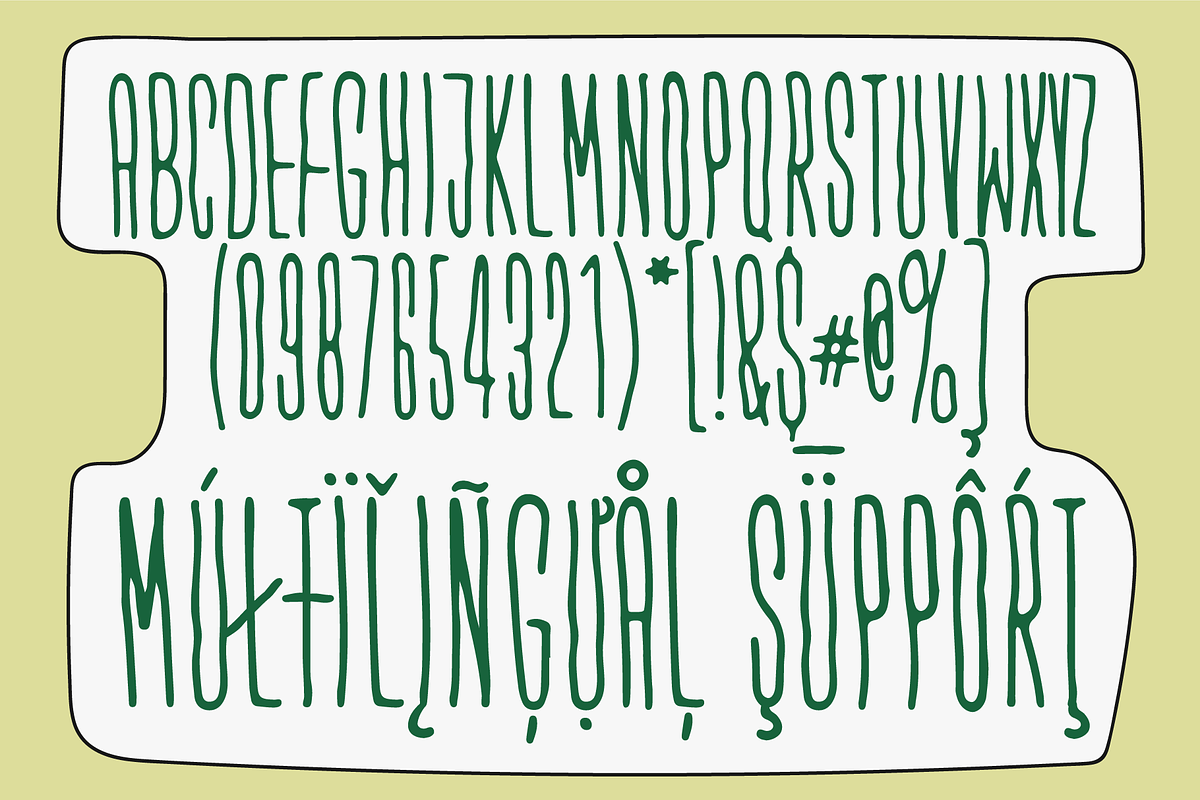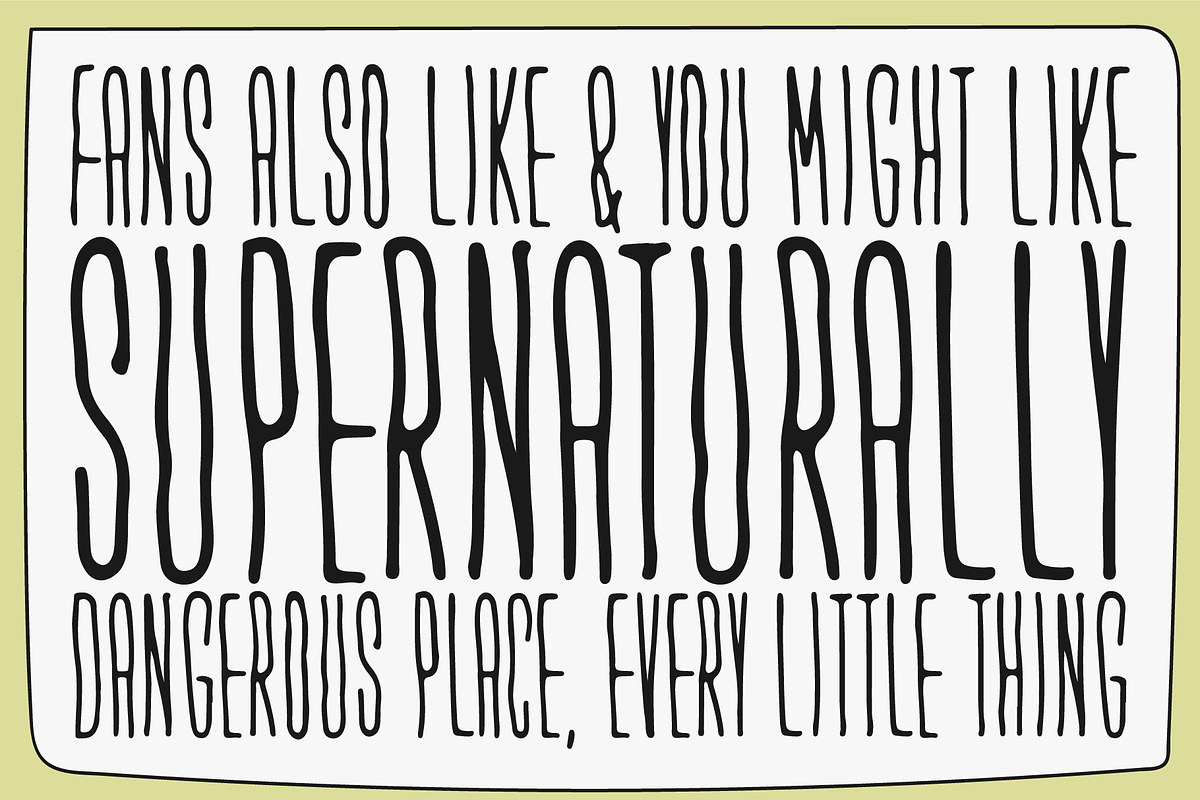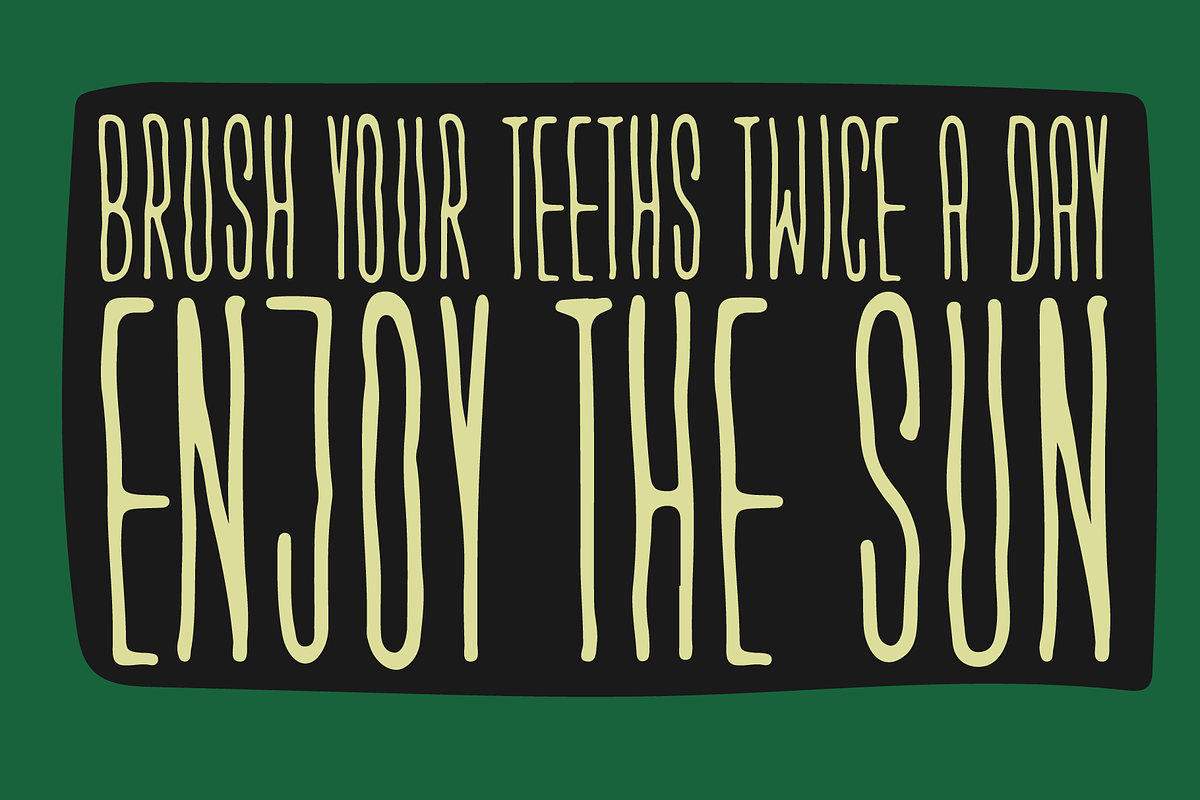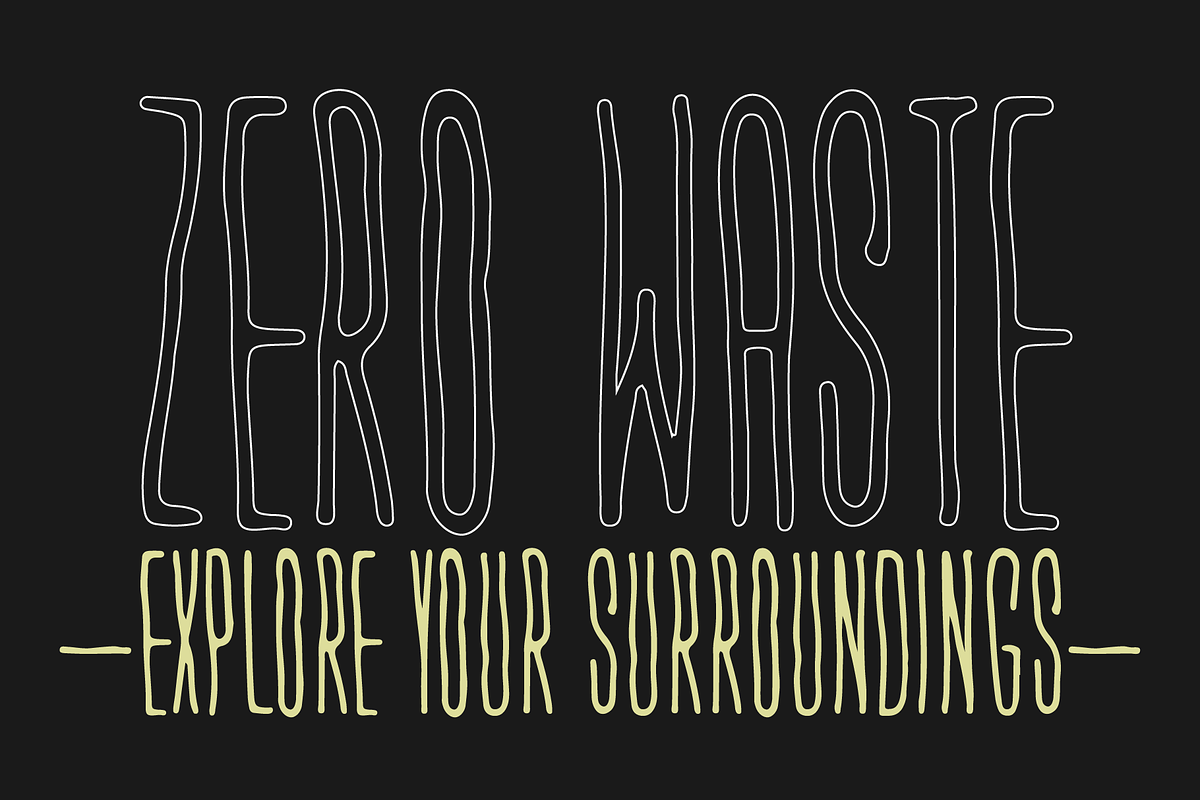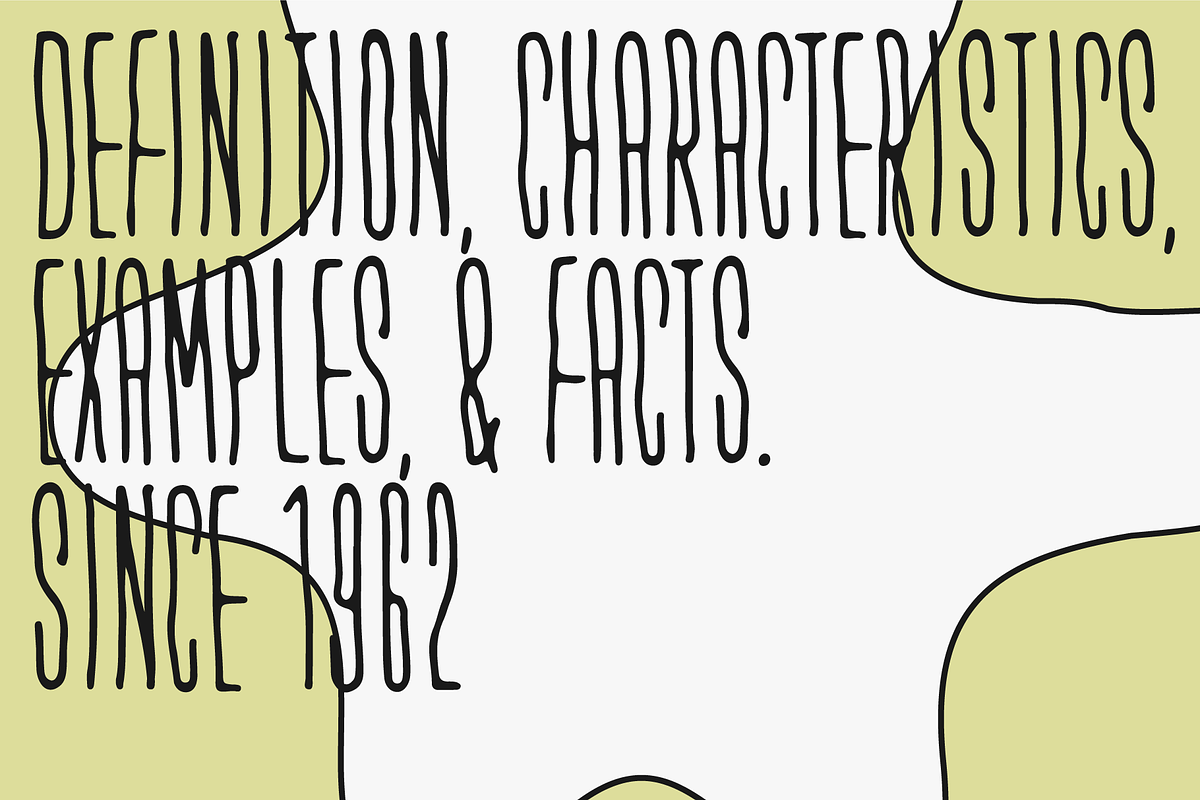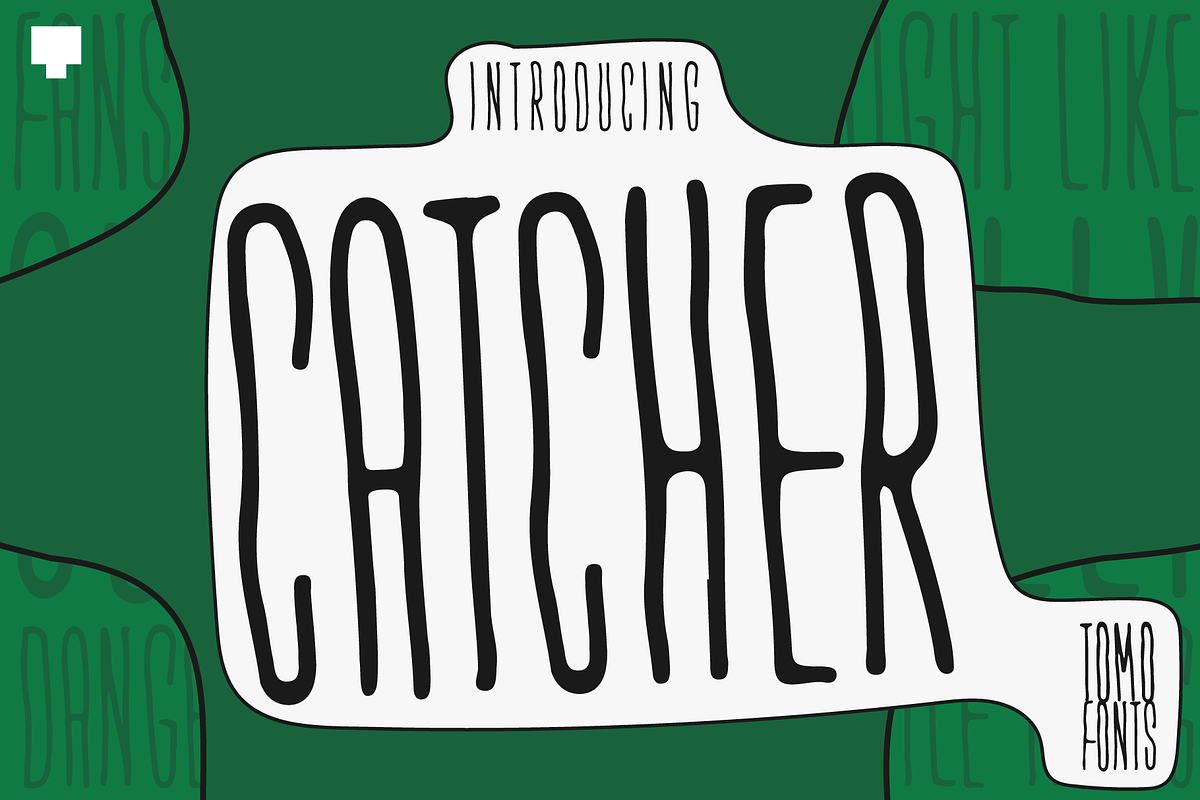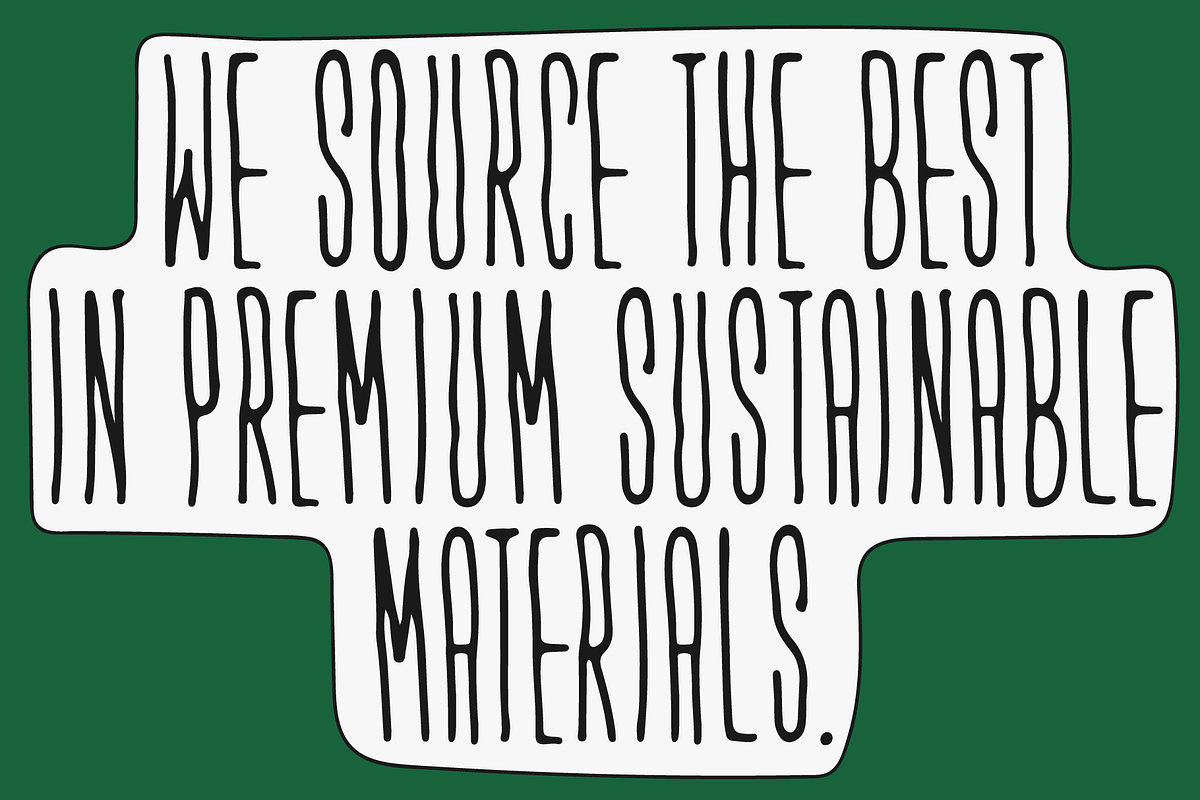
TOMO Catcher
TOMO Catcher is an extra narrow hand made font. Ideal for display signare or big titles such as for books, posters or websites. — Very tall and condensed!